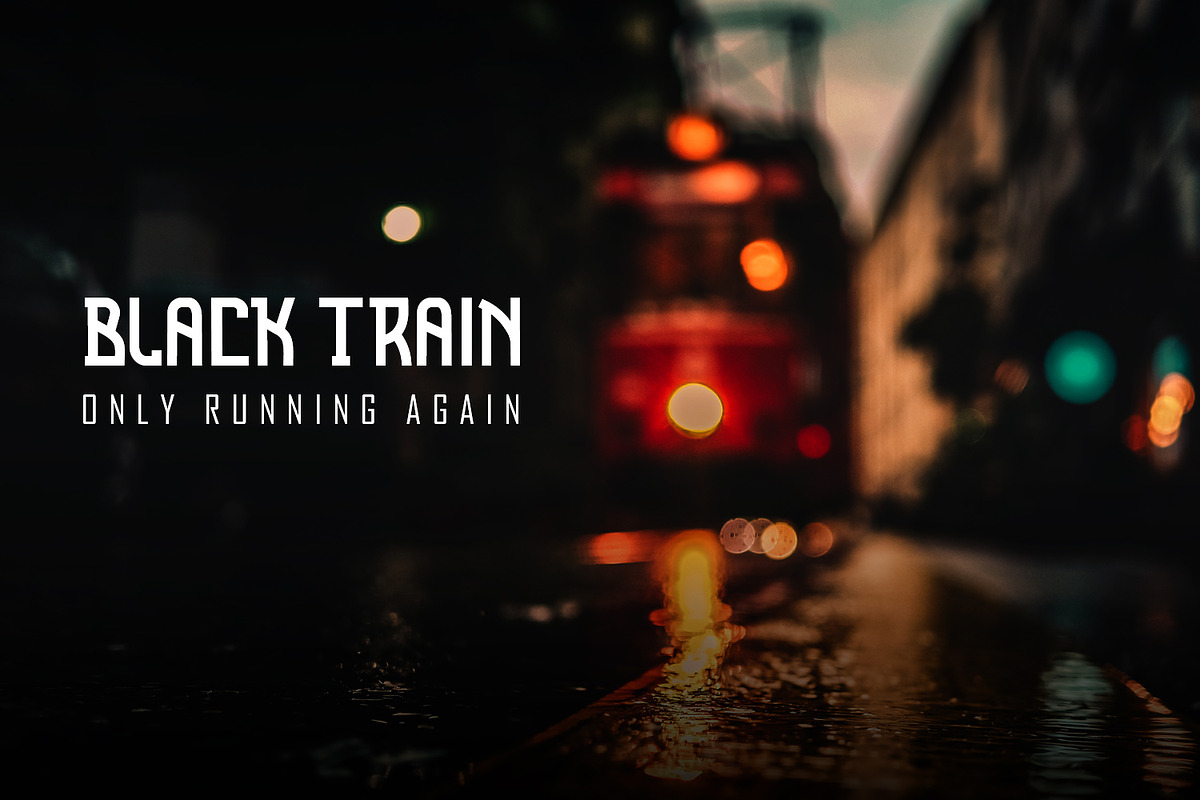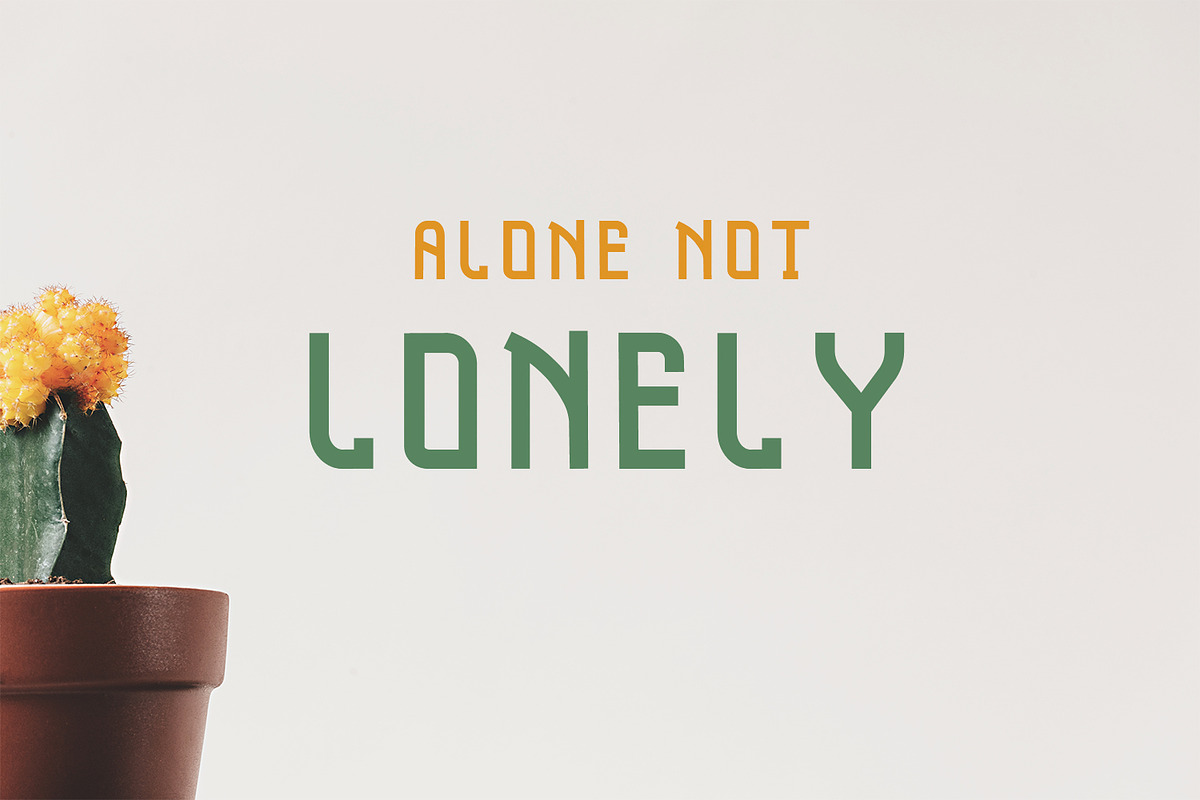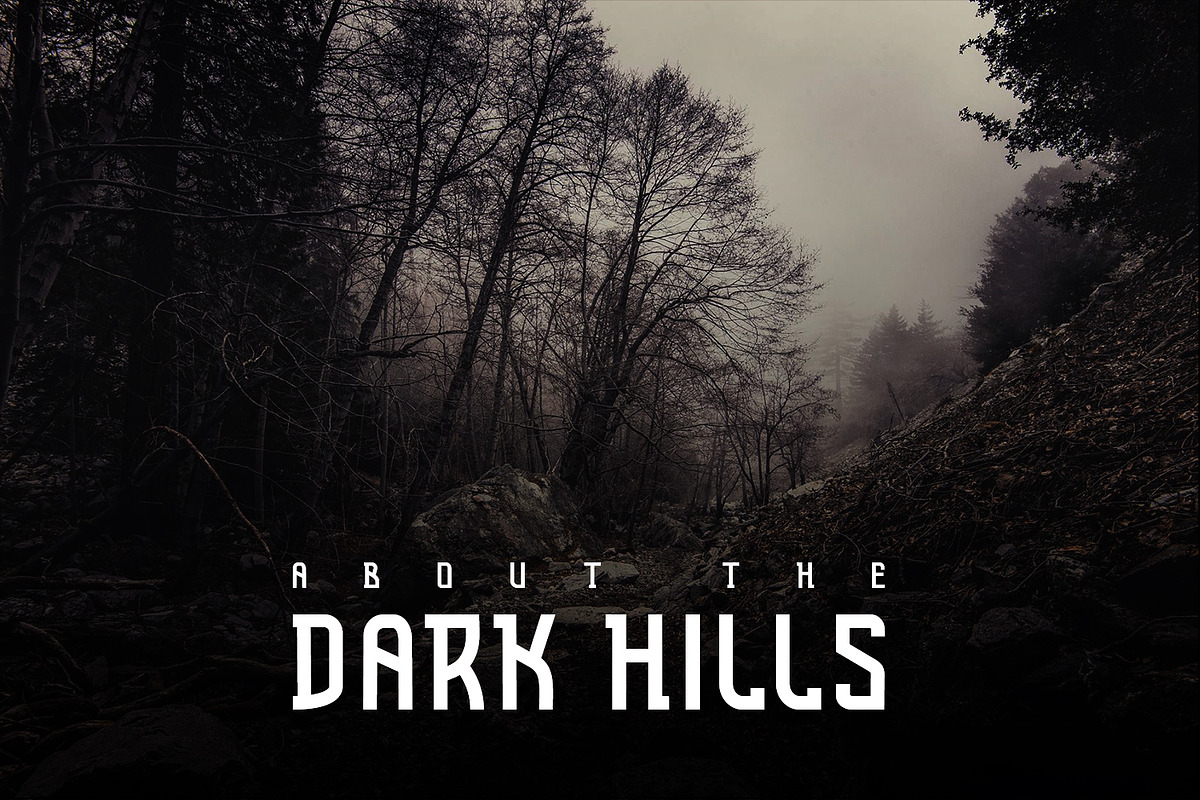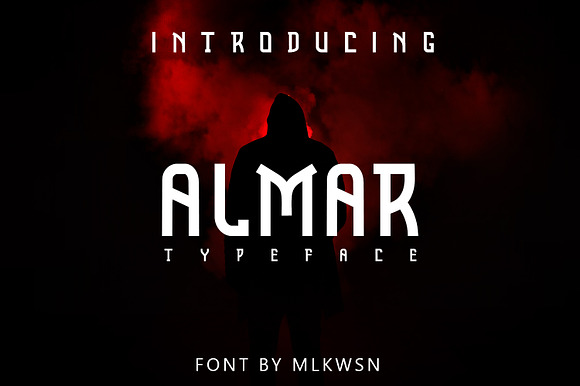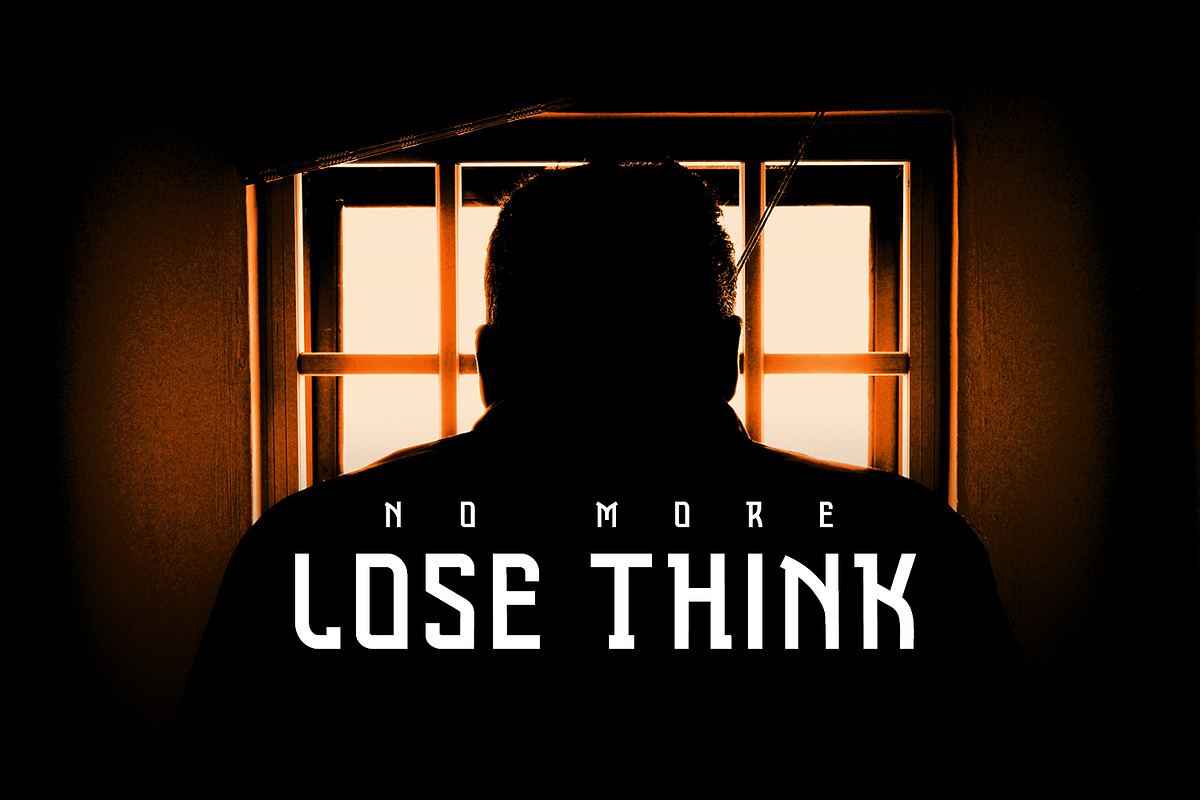
Almar Font
THIS FONT CAN BE USED IN THINGS TITLE LIKE A FILM OR ANY SUCH DOCUMENTATION OR ABOUT A MYSTERY, THANK YOU
Why Almar Font is worth a look
Almar Font by MLKWSN fits naturally into Branding, posters, packaging, typography.